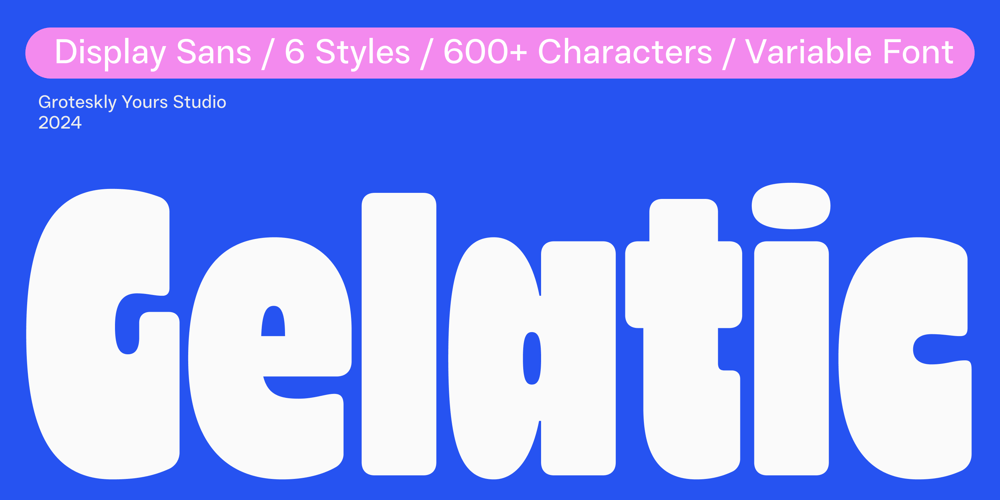
Gelatic
Gelatic font
Gelatic Font Family was designed by Eugene Tantsurin and published by Groteskly Yours. Gelatic contains 7 styles and family package options. Gelatic is a display sans serif type family featuring six distinct styles, along with a variable font option. Lively and whimsical, Gelatic has a unique, almost quixotic vibe, appearing at times silly, at times even heroic. The family name, Gelatic, is reminiscent of ‘gelato’, making it an ideal typeface for ice cream and sweets packaging. Gelatic would feel at home in any project where a sense of fun, delight, and visual appeal is essential.Gelatic is catchy, expressive and vibrant. It’s perfect for short headlines, short texts and logos. Thanks to its tight spacing and bold letterforms, Gelatic creates a unique rhythm in any body of text. Each style in the Gelatic family features different weight and width, and the variable font allows designers to further fine tune the font appearance, no matter how wide and bold it is.Gelatic features an extensive character set of over 600 characters, and includes various OpenType features, such as Case Sensitive Punctuation, Stylistic Alternates, Ligatures, and many more. Additionally, it supports more than 200 Latin-based languages.